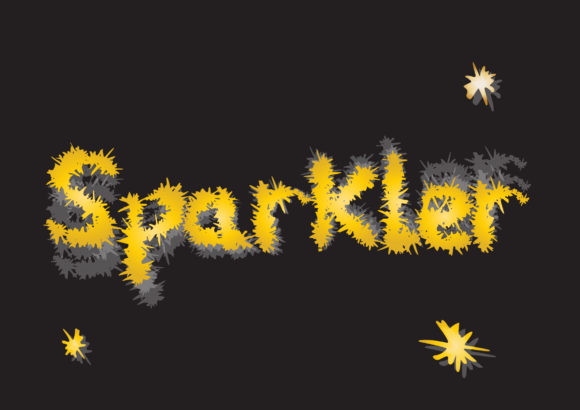
Welcome to the world of Sparkler Fonts - a delightful display font family, meticulously designed to bring a touch of sparkle and whimsy to your creative projects. Created by the talented artists at GraphicsBam Fonts, Sparkler is an enchanting font that will add a dash of magic to your greeting cards, crafting projects, and any design that calls for a playful and inviting touch.
With its captivating curves and sparkling personality, Sparkler Font is the perfect choice for those seeking to create captivating designs that leave a lasting impression. Its unique letterforms dance and shimmer, creating a sense of wonder and excitement that is sure to capture the hearts of young and old alike.
Immerse yourself in the boundless creativity that Sparkler Font offers. Let your imagination soar as you craft enchanting invitations, design personalized posters, or add a touch of whimsy to your social media posts. The possibilities are endless with this versatile and enchanting font.
Sparkler Font is more than just a collection of letters; it's an invitation to embark on a journey of creativity and self-expression. Its enchanting charm will ignite your imagination and inspire you to create designs that sparkle with joy and individuality.
So, embrace the magic of Sparkler Font and let your creativity shine. Transform your designs into captivating masterpieces that captivate and inspire. With Sparkler Font by your side, the possibilities are limitless - let your imagination run wild and create designs that truly sparkle!